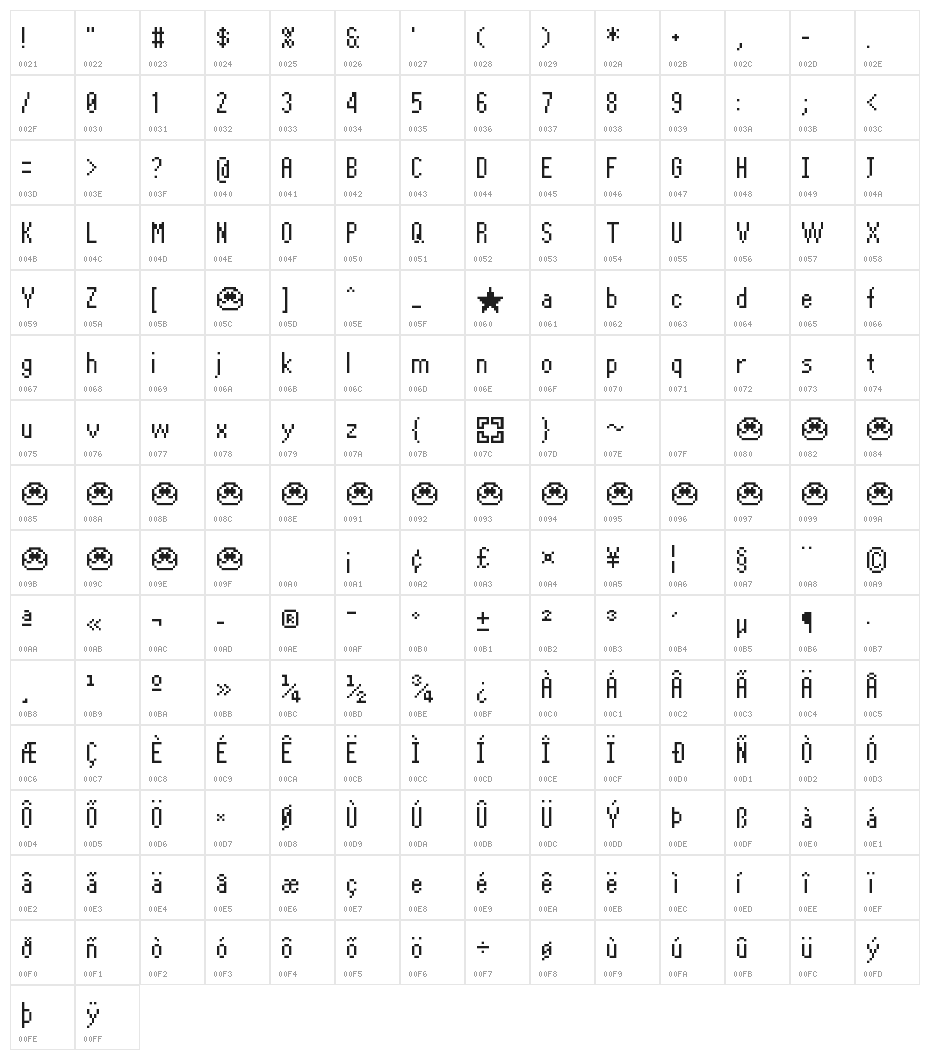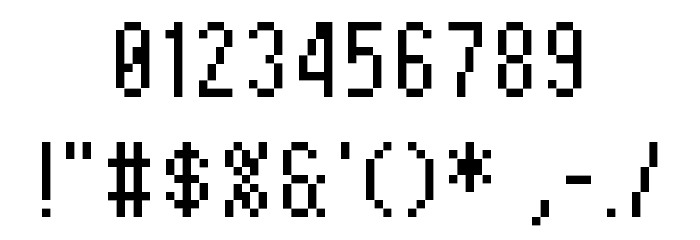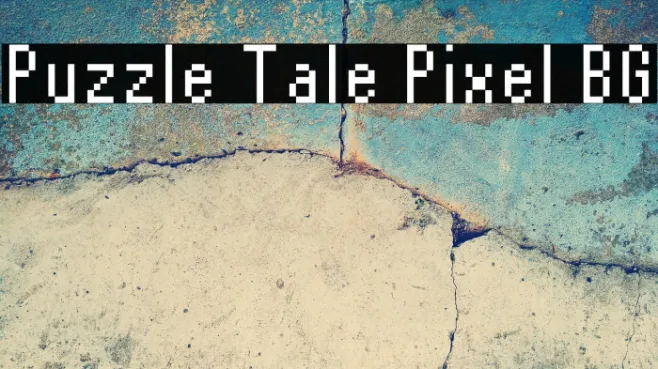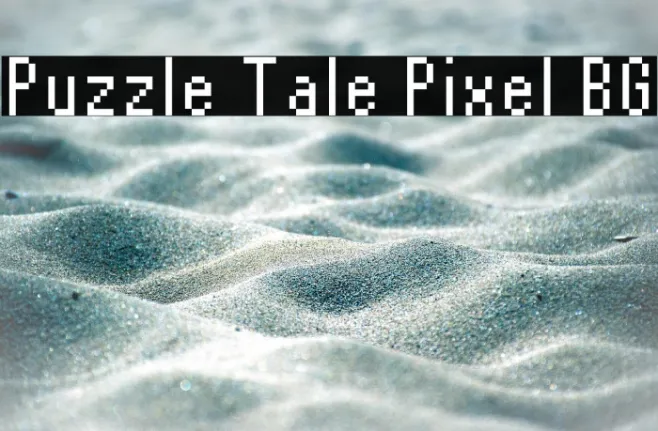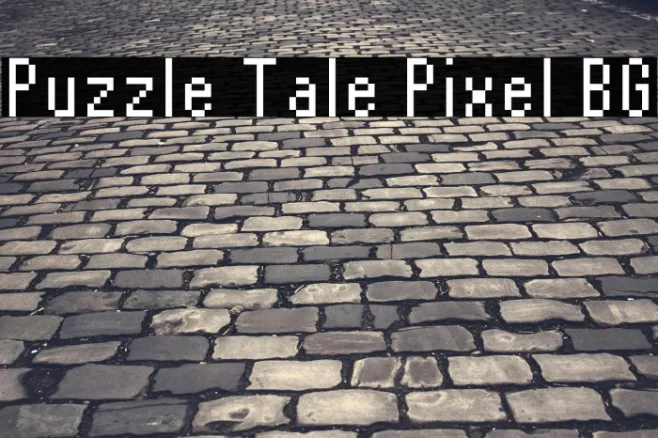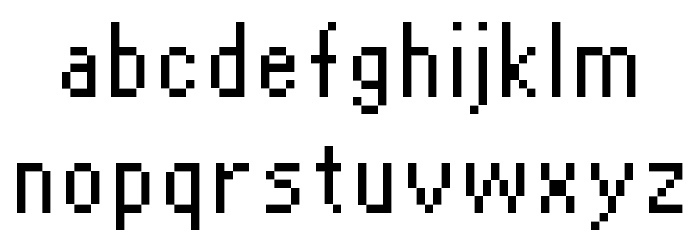
Puzzle Tale Pixel BG Font
Puzzle Tale Pixel BG Description
This font features a pixelated, blocky design reminiscent of classic video game aesthetics. Each character is composed of distinct square pixels, giving it a retro, digital appearance. The uppercase and lowercase letters maintain a consistent height, with minimal variation in width, creating a uniform look. Numbers and special characters follow the same pixelated style, ensuring a cohesive visual theme. The font's simplicity and clarity make it highly legible, even at smaller sizes, while its nostalgic design evokes a sense of playfulness and creativity.
| Use Case | Headlines, Logos, Digital Art |
| Proposed Projects | Ideal for video game design, retro-themed graphics, digital art projects, and any creative work that requires a nostalgic or playful touch. |